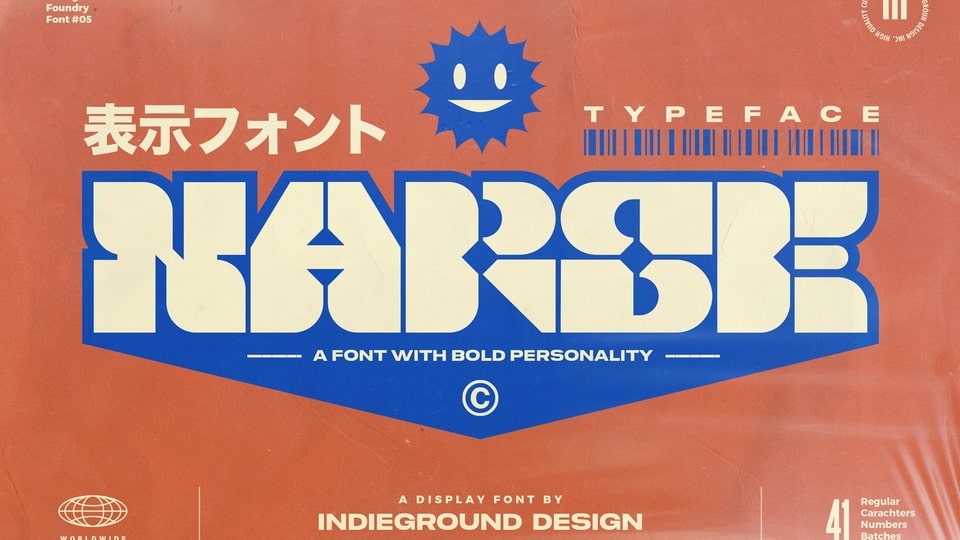
Download Narse font, a unique display typeface based on a square module. Narse font gives a classic mood with modern styling and boldness to the typography of your artworks.
Designer: Indieground Design